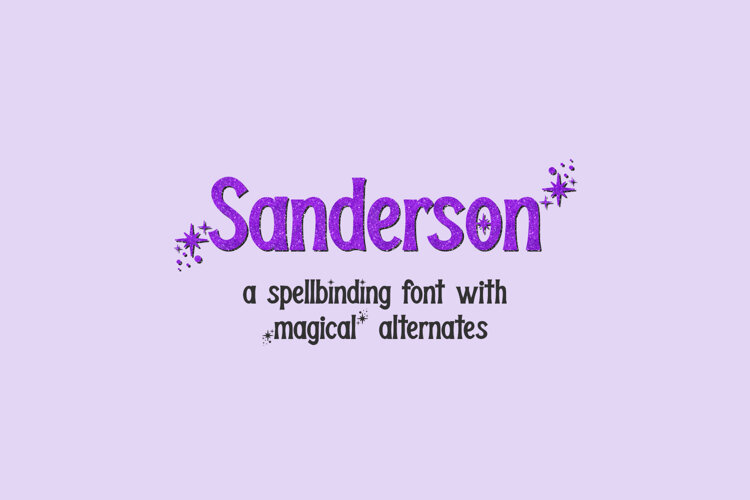
Sanderson Display Font
Sanderson is a magical, witchy display font that includes starry clusters on each letter. This enchanting font is fantastic for logos & branding, greeting cards, painted banners, digital planners, note-taking apps, Canva, Cricut projects, Silhouette projects, designing SVG files, laser cutting projects, & more. Make sure you use OpenType friendly software to easily access the special characters! (If you don’t use that type of software, you can still access the characters using Character Map (PC) or FontBook (Mac) to copy/paste the characters into a program of your choice.)
Use Sanderson for witchy shirts, tarot-inspired designs, Halloween signs, mugs, stickers, invitations, and other crafty projects.
Sanderson Display includes:
- 4 alternates - O, i, j, o
- 8 ligatures - fi, fj, fl, fp, ft, qj, qp, rt
- left & right starry clusters on each upper & lowercase character